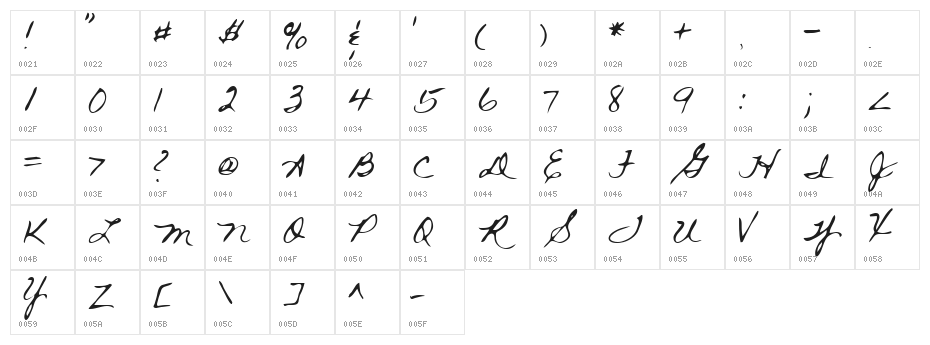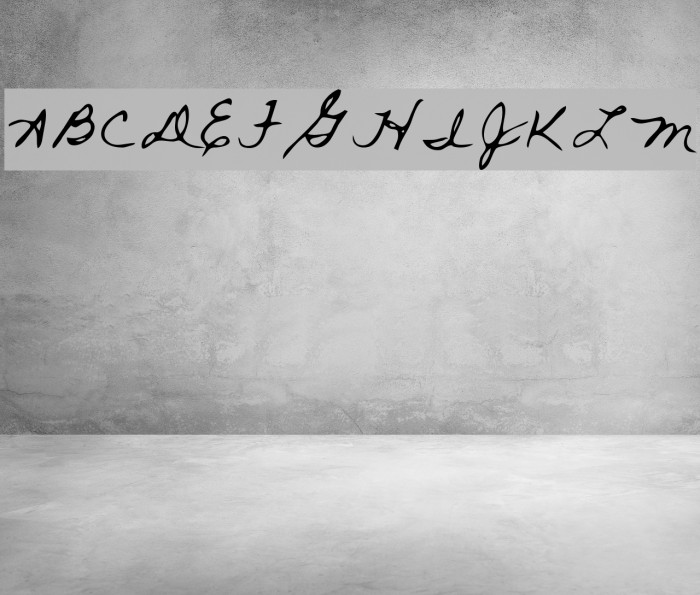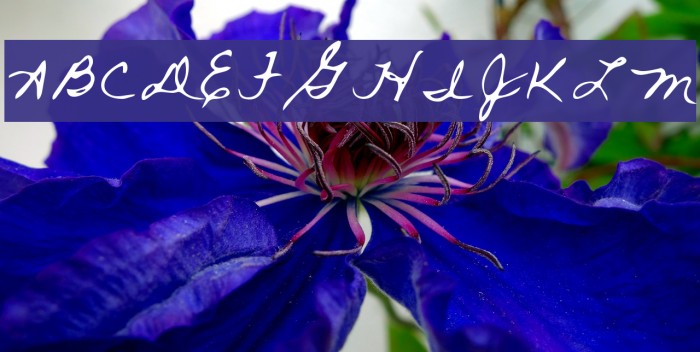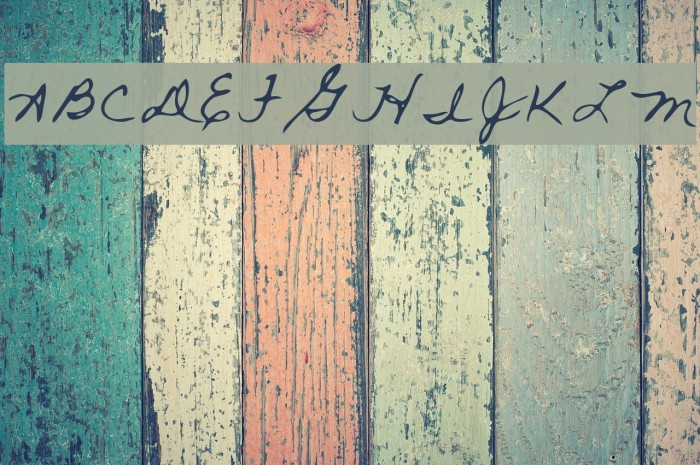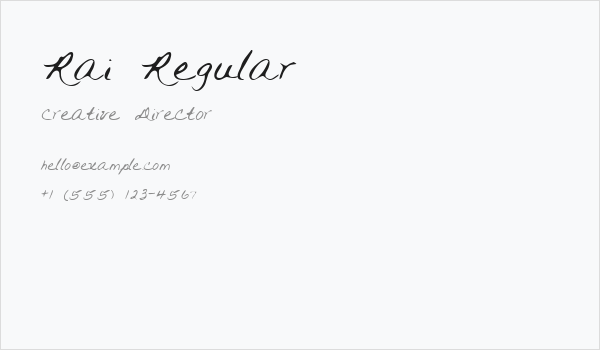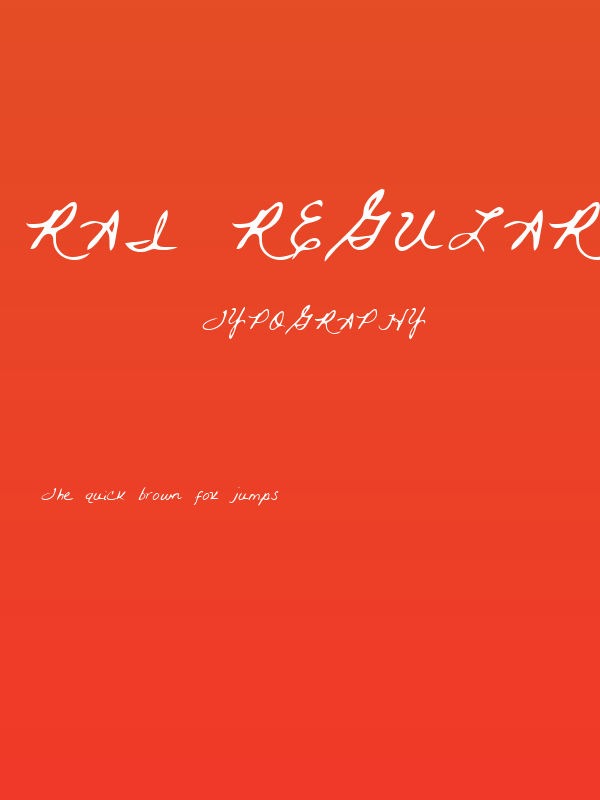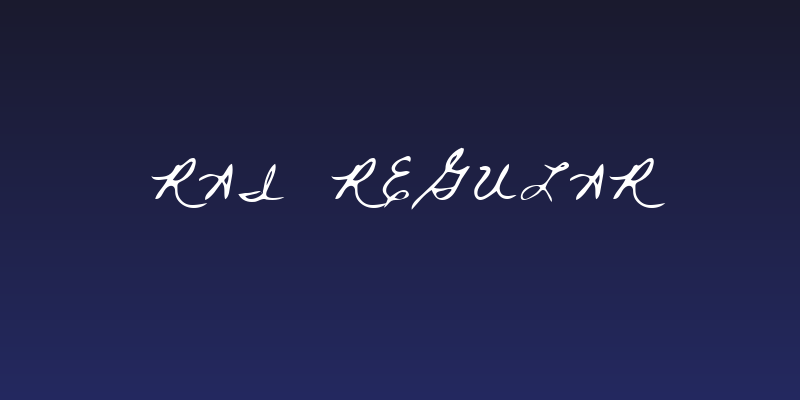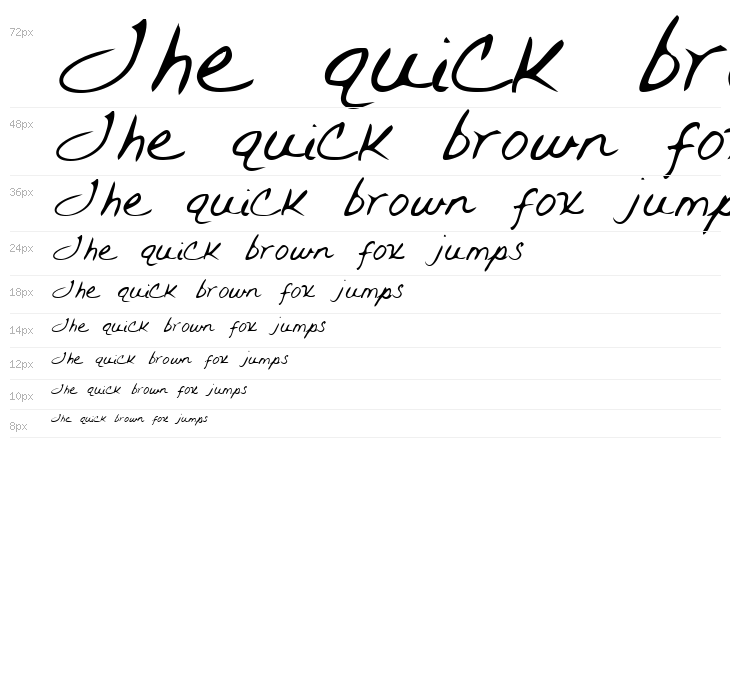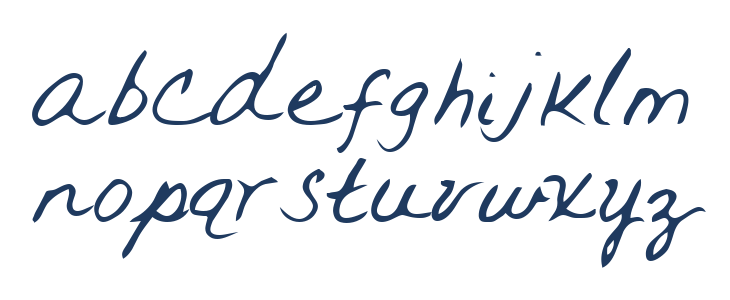
Rai Regular Font
Rai Regular Description
This font exhibits a fluid, cursive style that mimics natural handwriting, offering a personal and artistic touch. The characters are elegantly connected, with a consistent slant that enhances its handwritten appearance. The uppercase letters are distinct and slightly larger, maintaining a harmonious balance with the lowercase set. Numbers and special characters are crafted with the same flowing strokes, ensuring uniformity across all glyphs. The overall design is both expressive and legible, making it suitable for projects that require a personal or creative flair.
Use CaseLogos, Headlines, Artistic projects
Proposed ProjectsIdeal for invitations, greeting cards, personal branding, and artistic projects.